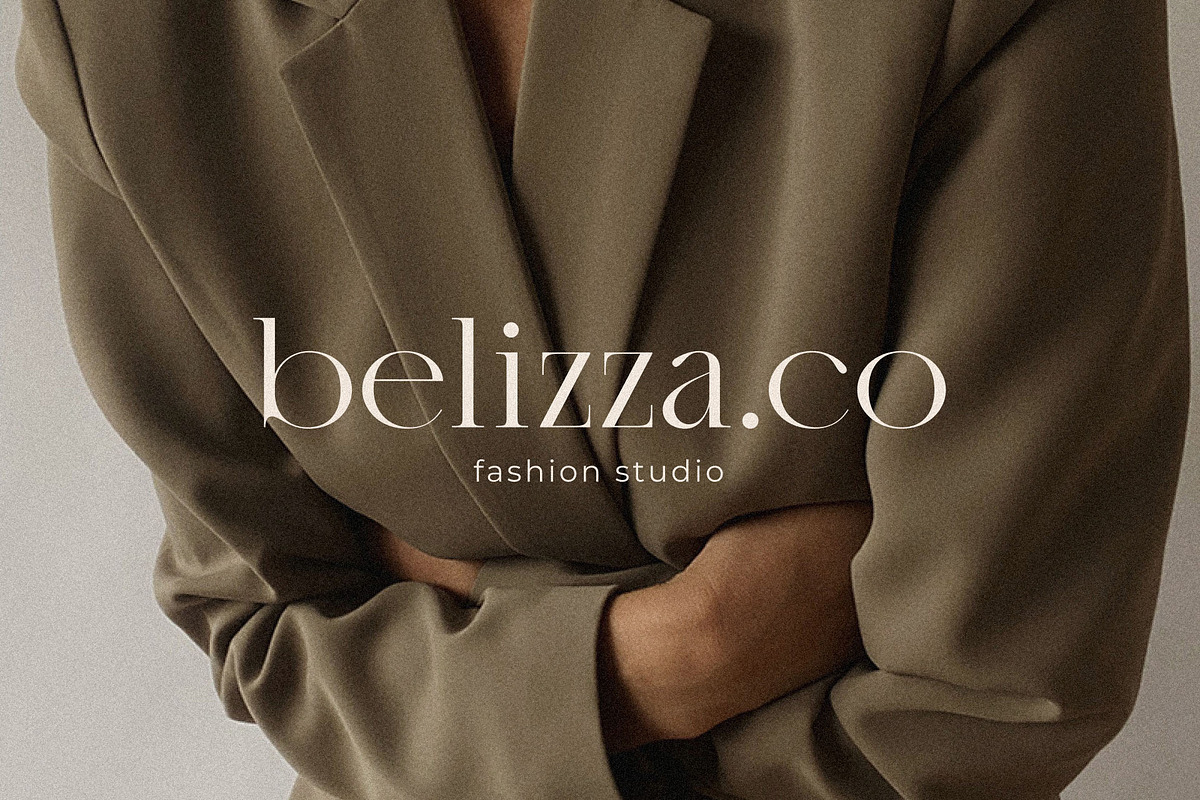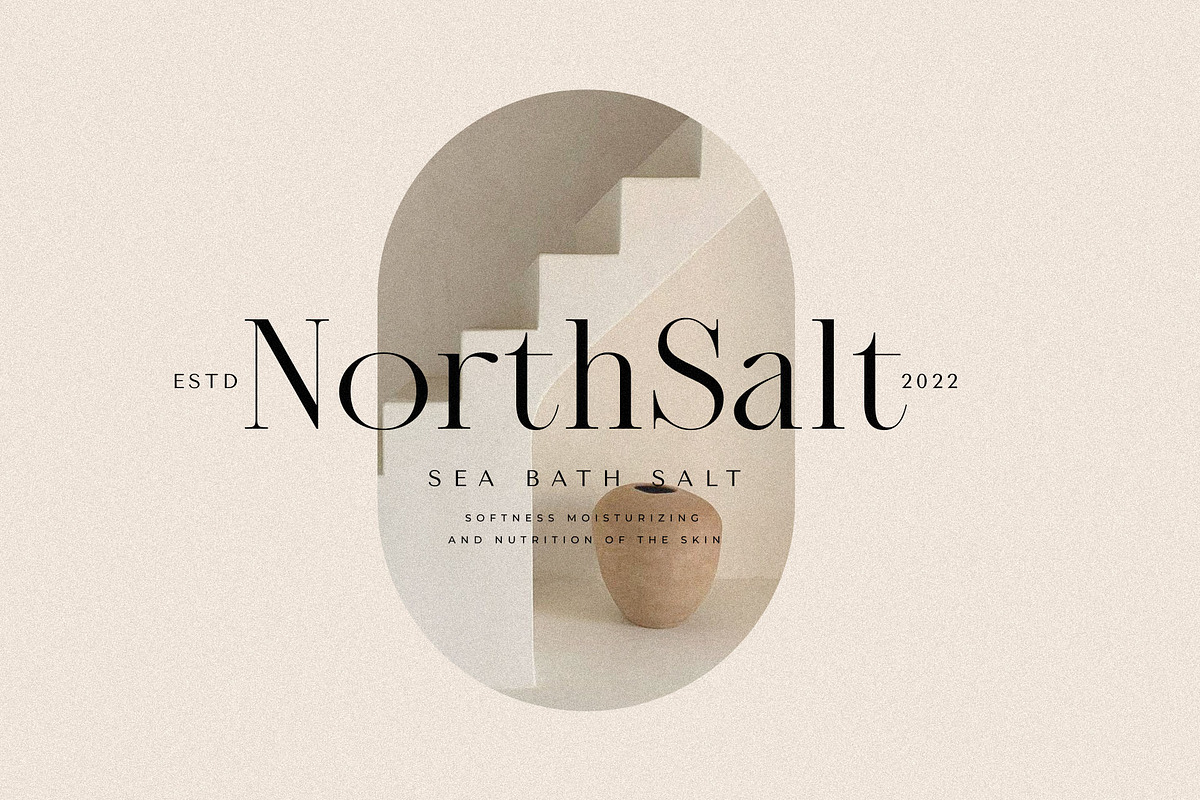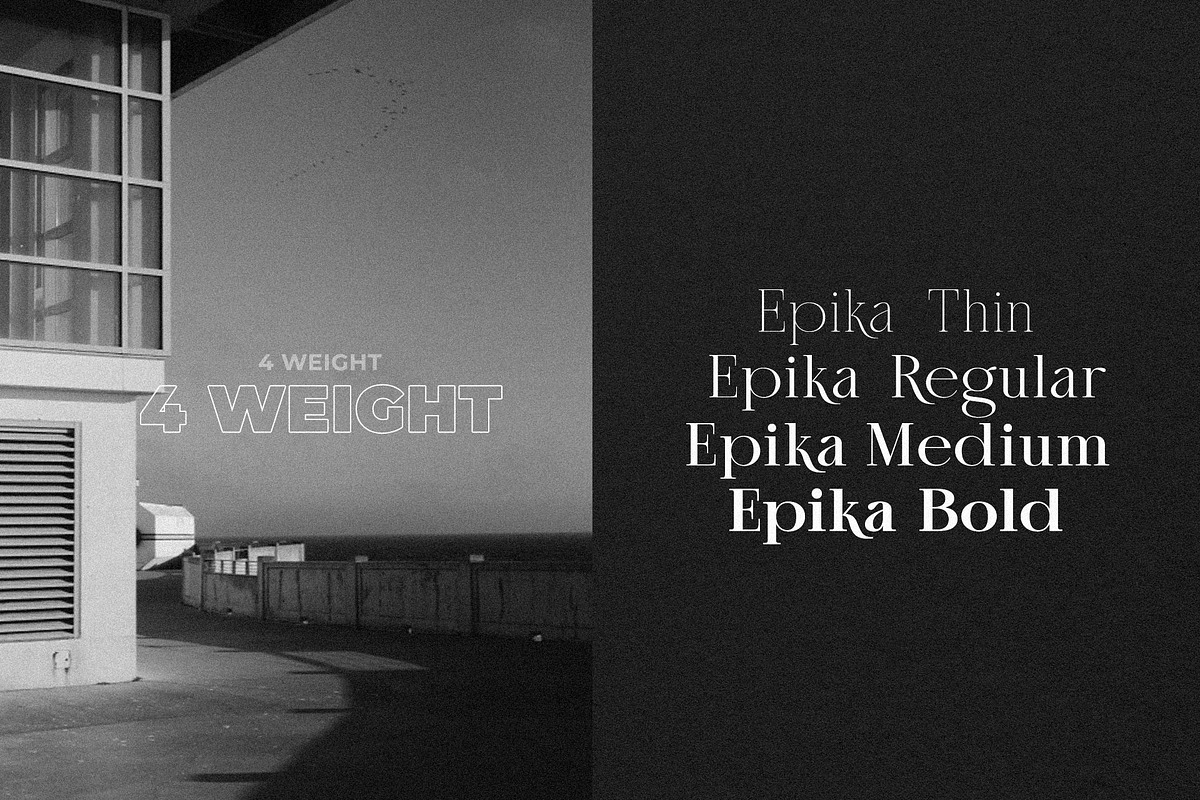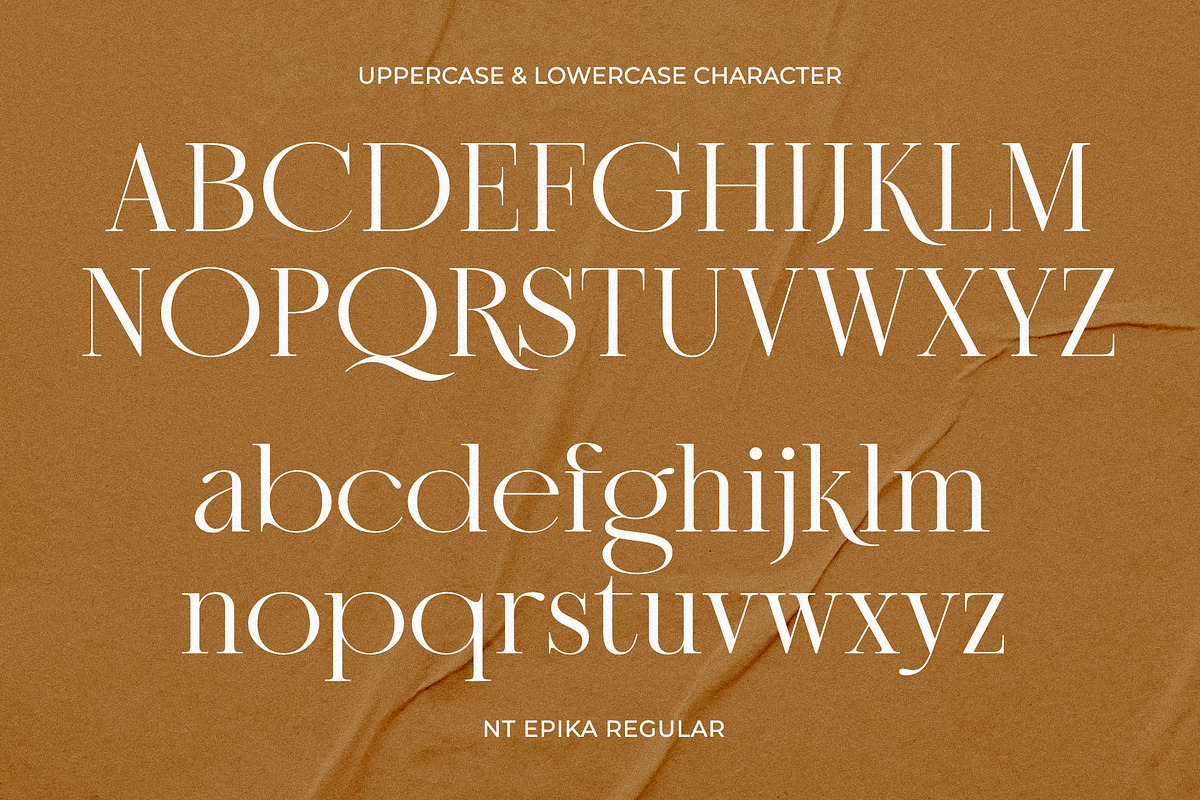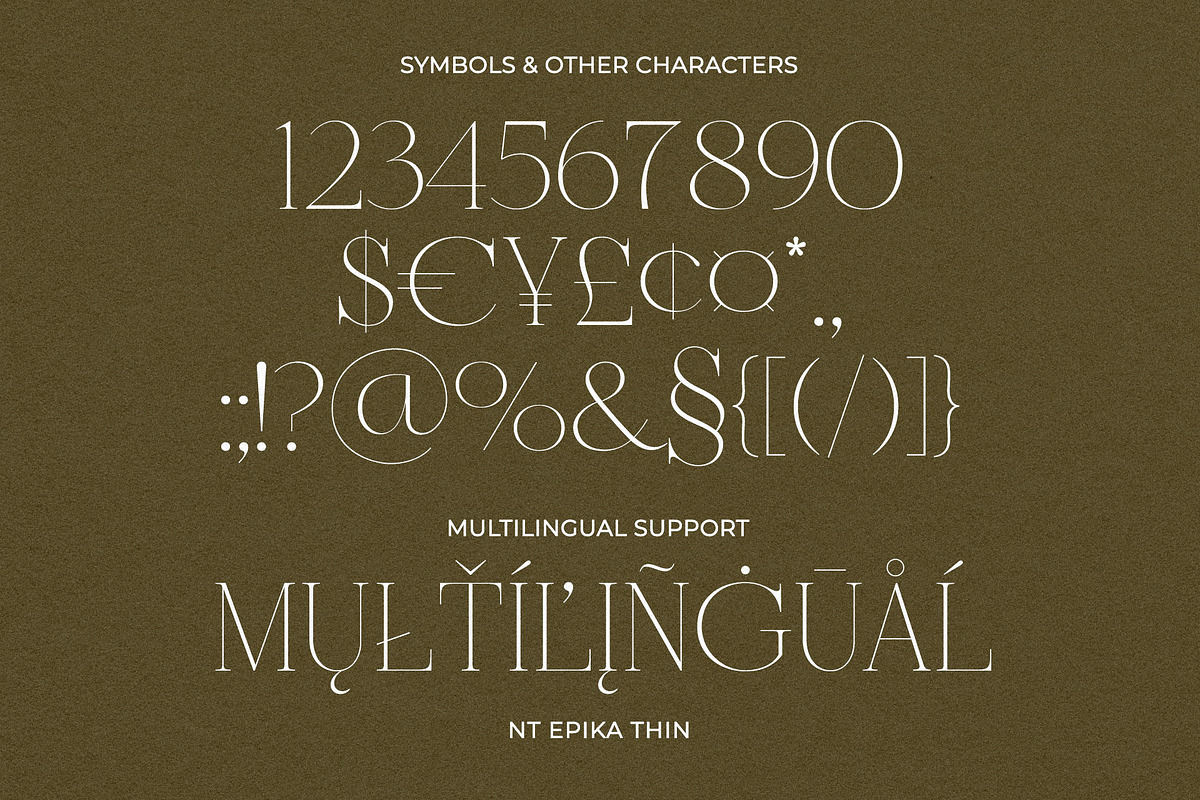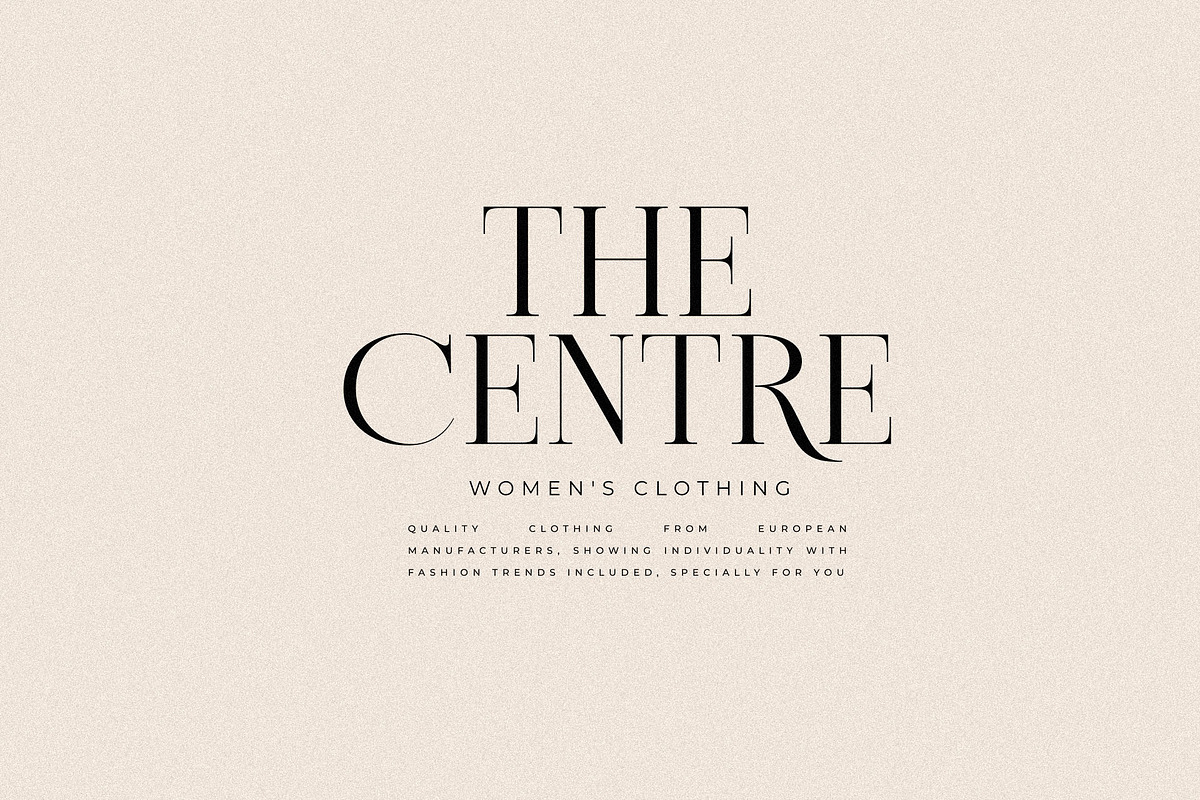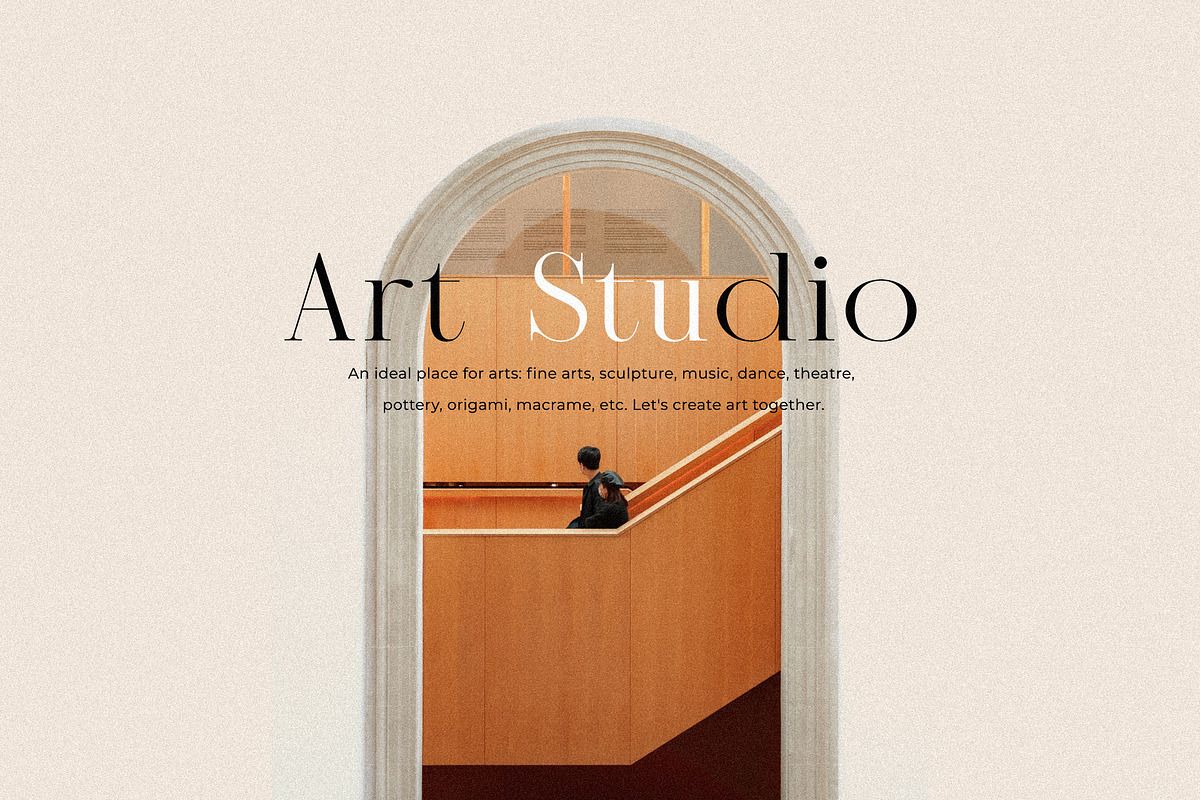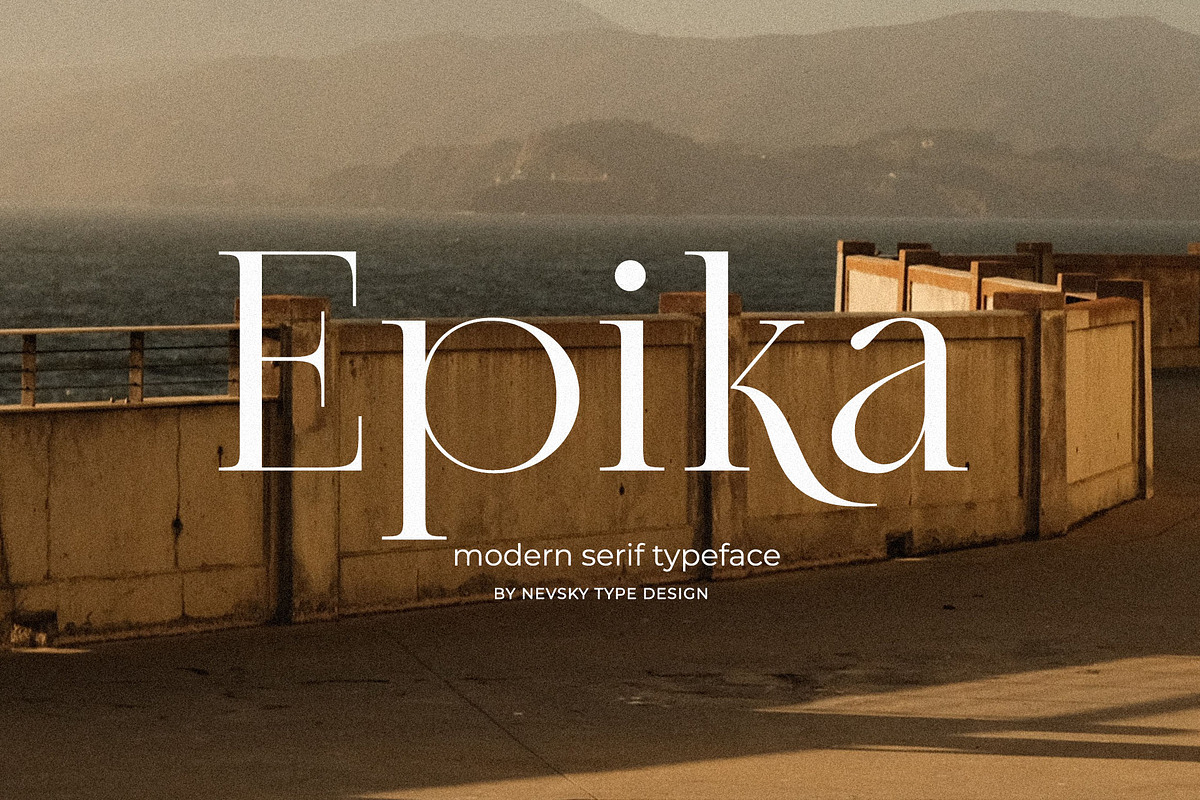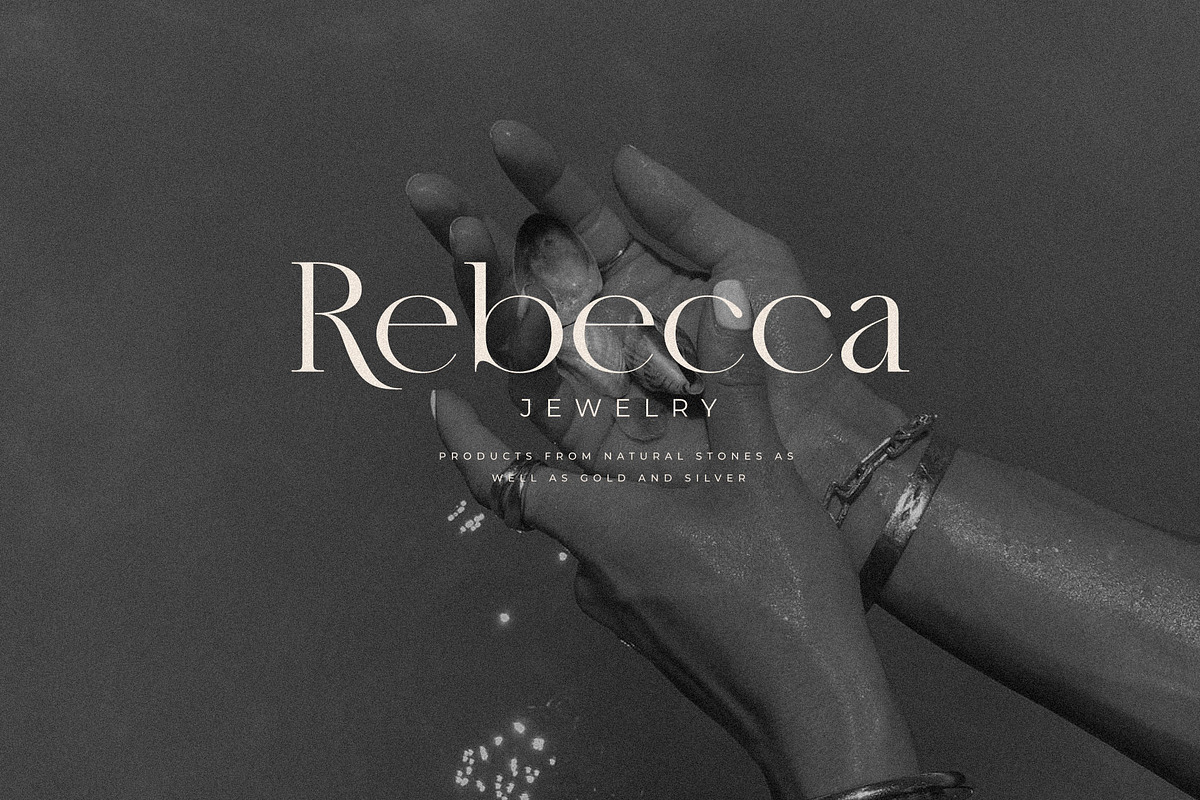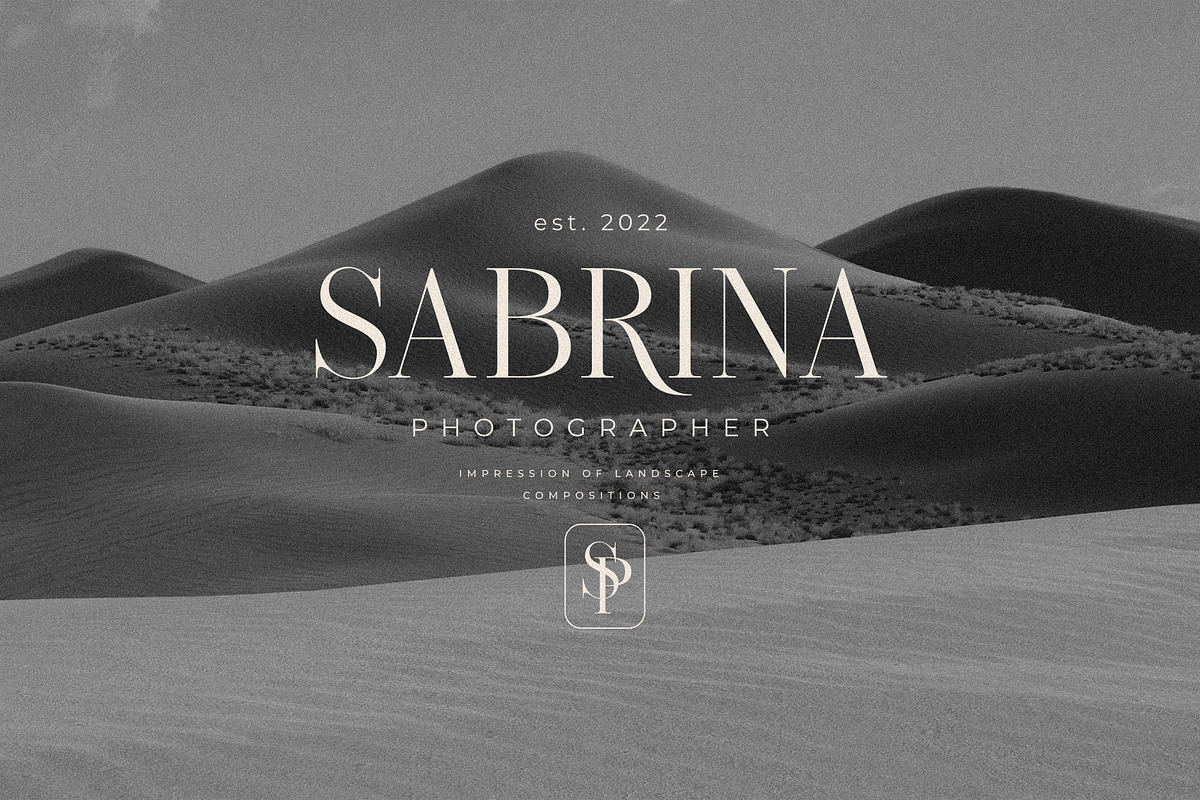
NT Epika
NT Epika is a new serif font. This beautifully timeless serif is the definition of high fashion. This elegant free font needs to be in your collection and is perfect for your next luxury design project.
NT Epika supports over 200 Latin-based languages.